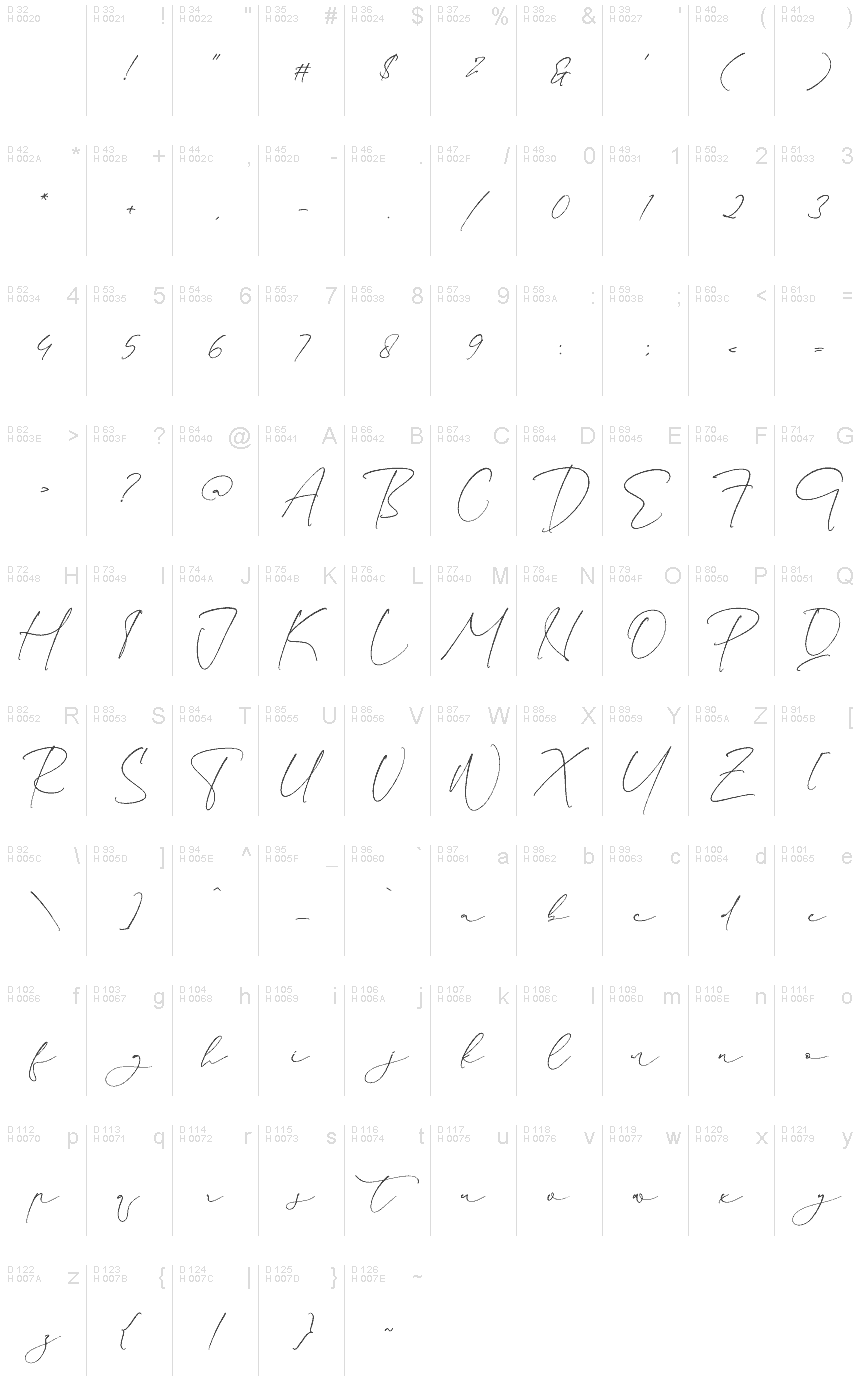
Restillofa
Restillofa font is a signature handwritten typeface designed by Storytype Studio. The elegant, flowing characters showcase an organic movement and casual sophistication ideal for contemporary applications. Its light lines and hand-drawn appearance resemble real handwriting’s pleasant imperfections, adding authenticity to any design.
The free handwritten font is ideal for personal branding, posters, packaging, business cards, and invitations. Use it in stationery designs such as greeting cards or marketing projects like social media ads whenever elegance or a friendly appeal needs to be conveyed.